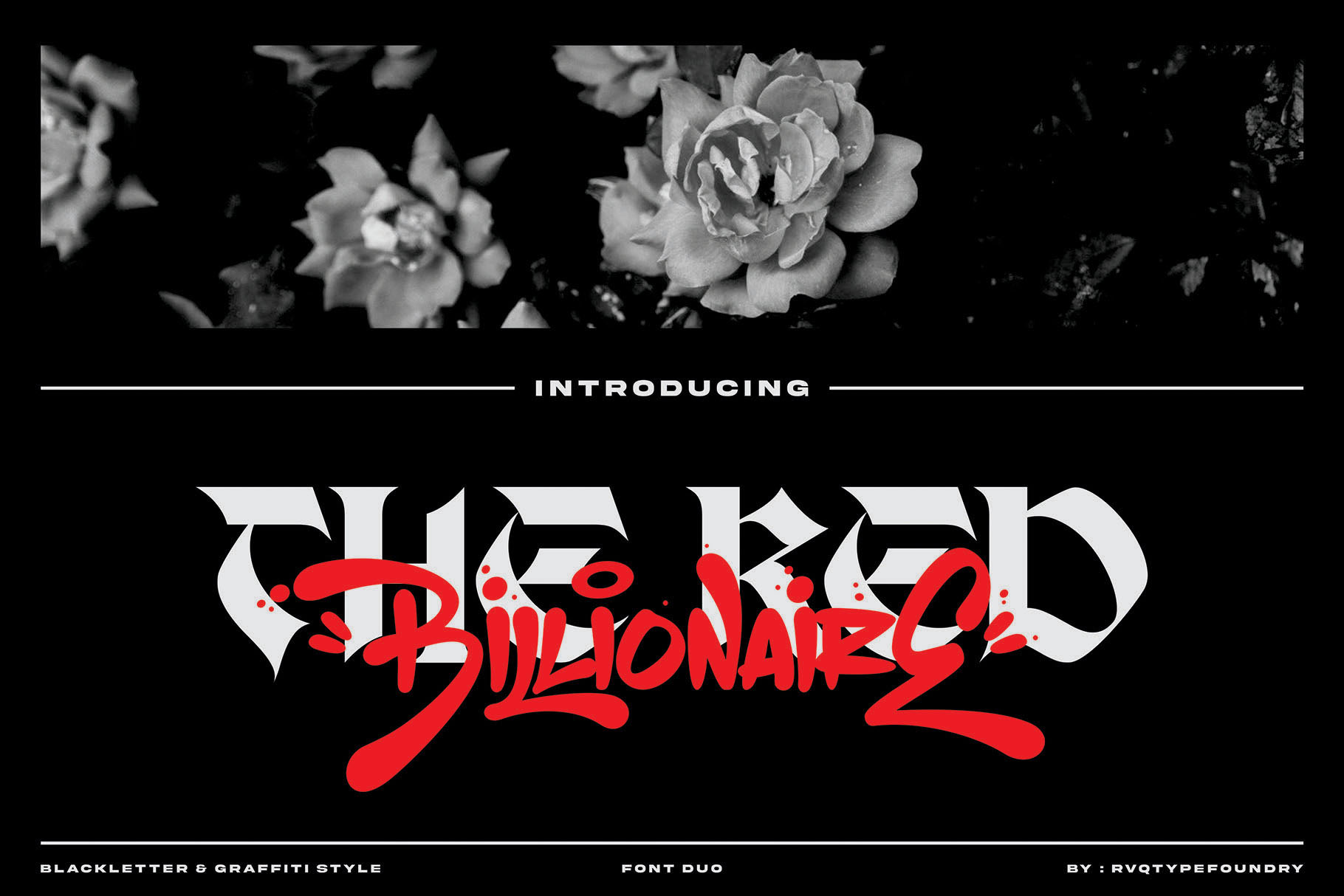
The Red Billionaire (font duo)
The Red Billionaire is the new font from Rvq typefoundry ,was created as a dual-purpose font To create the beautiful combination, The Red Billionaire includes a full set of capital and lowercase letters, as well as multi-lingual support, currency figures, numerals, punctuation & some extra glyphs, Perfect for : for Branding, Logos, Greeting Cards, Stationery Design, Invitations, T-shirts, Apparel, Packaging designs, Posters, Typographic Design, and so much more..